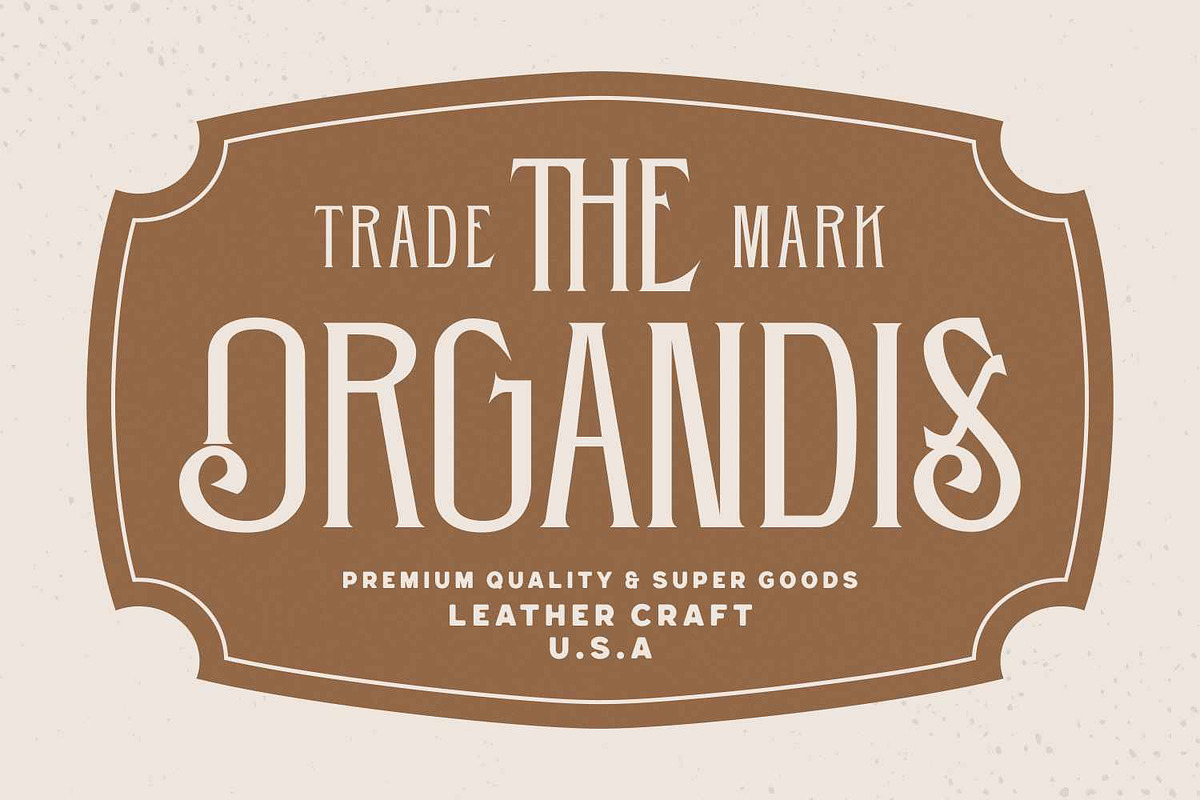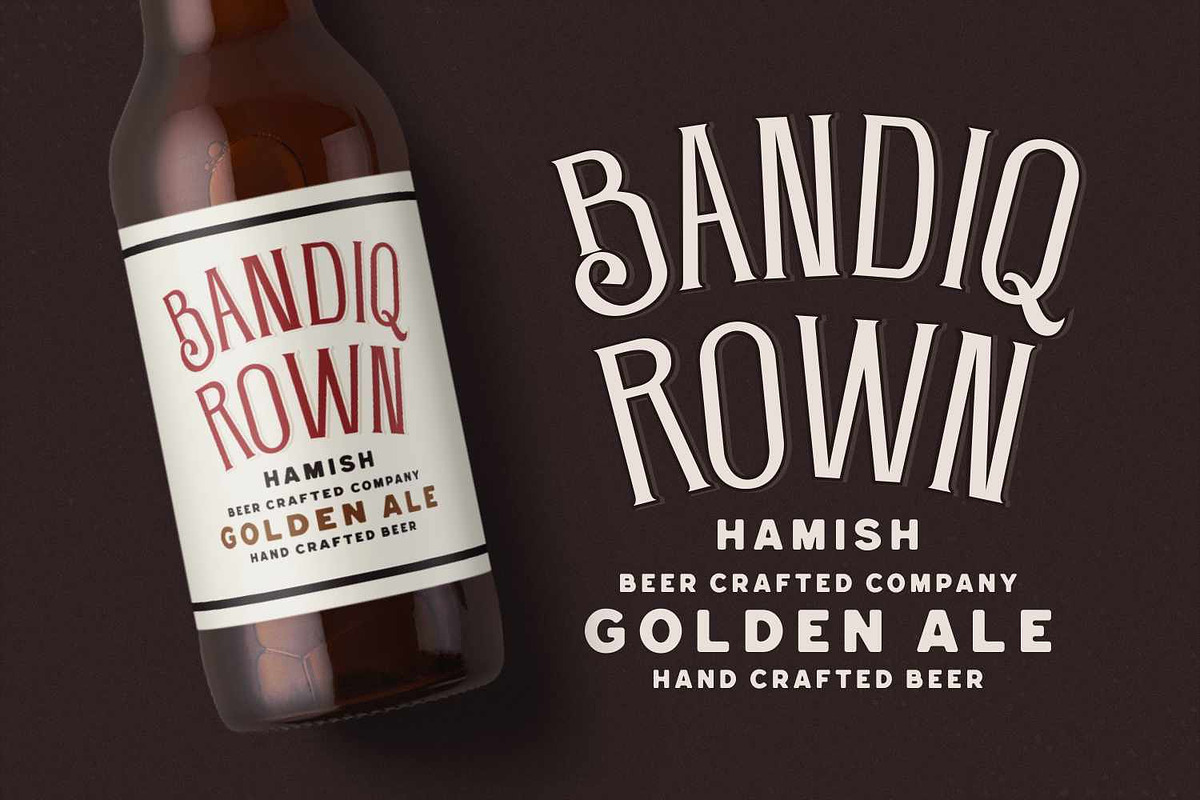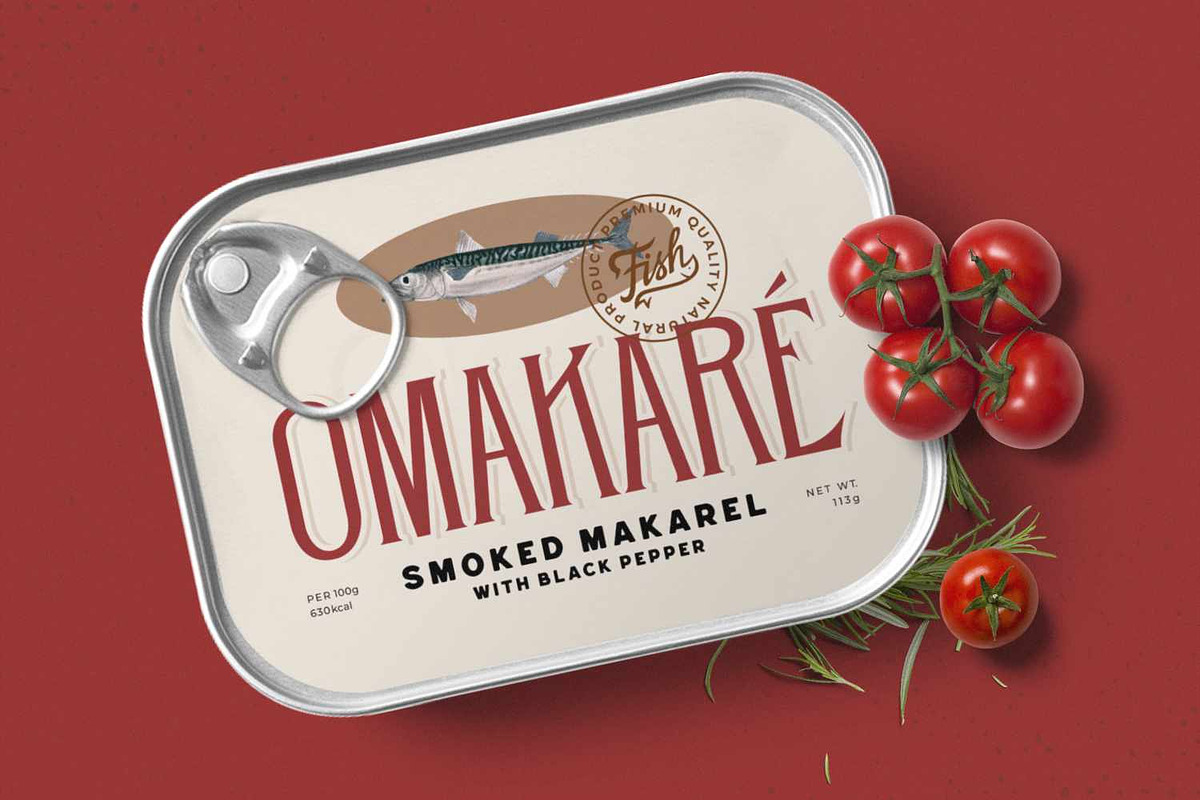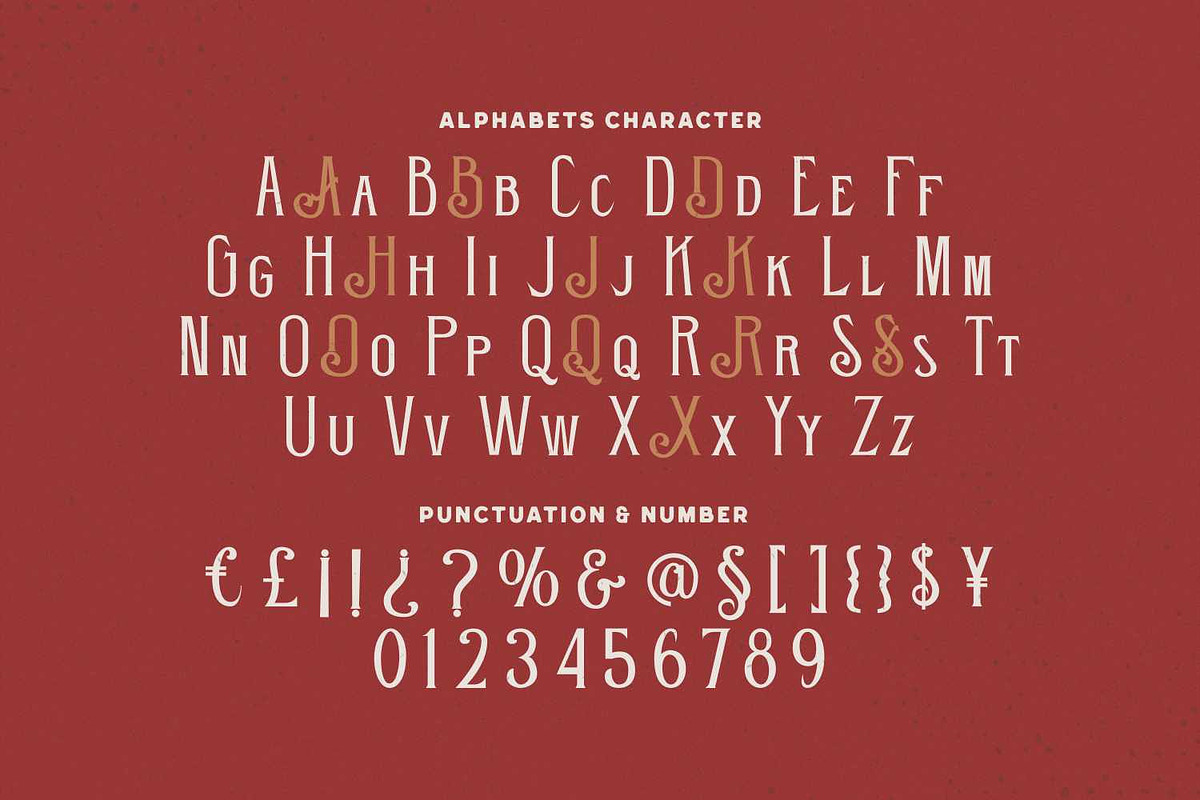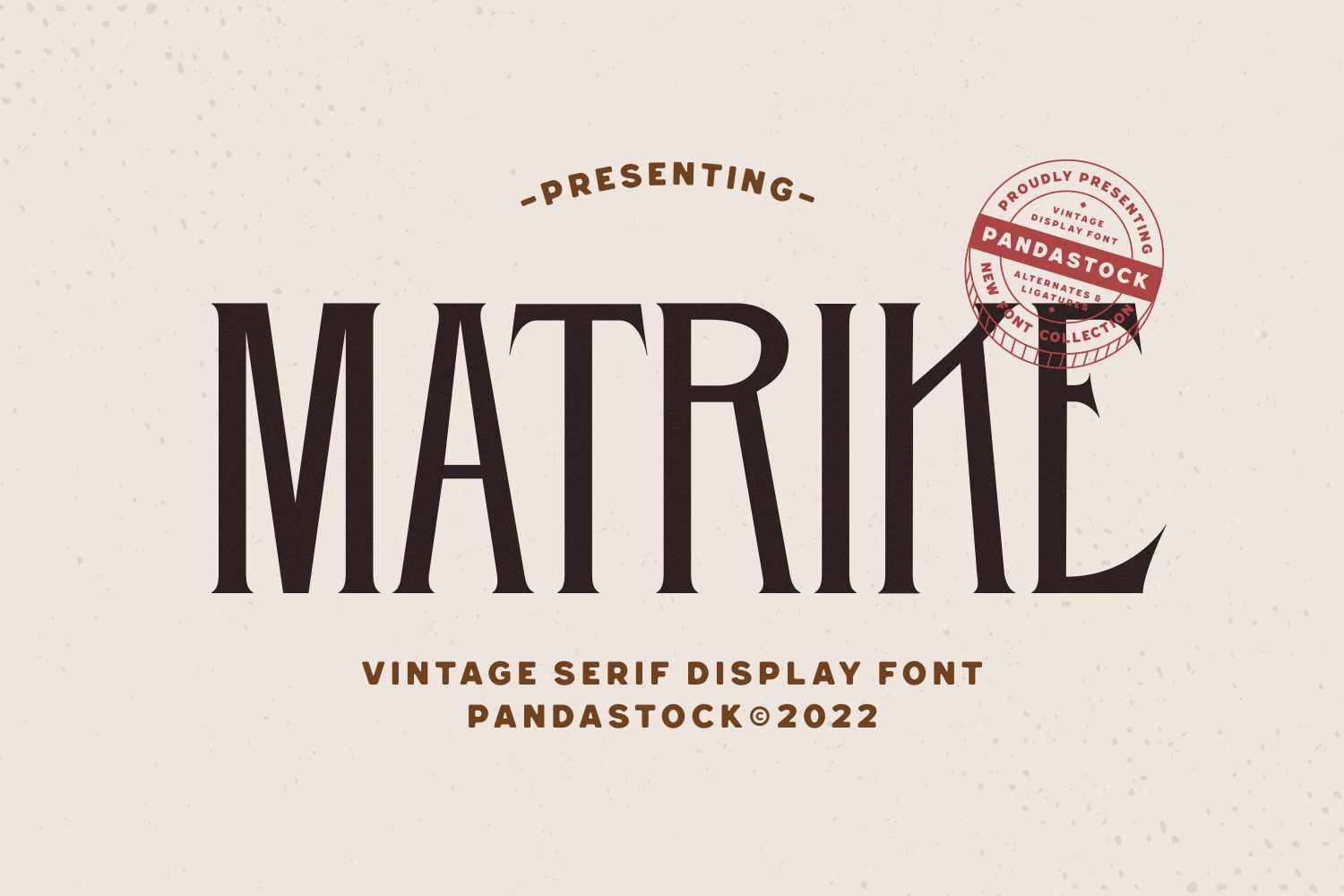
Matrike - Tall Condensed Serif Font
Matrike is a tall condensed serif font designed for bold headlines and nostalgic packaging. Its letterforms feature strong vertical strokes, sharp wedge serifs, and high stroke contrast, reminiscent of early 1900s sign paintings and art deco headlines.
This combination of sophistication and bold presence makes Matrike ideal for projects that demand a timeless yet distinctive look, whether you're designing artisanal product labels, retro branding, or luxury packaging.
- Uppercase and Lowecase Characters.
- PUA Encoded Characters.
- Numerals and Punctuations.
- Alternates and Ligatures.
- Multilingual Support.